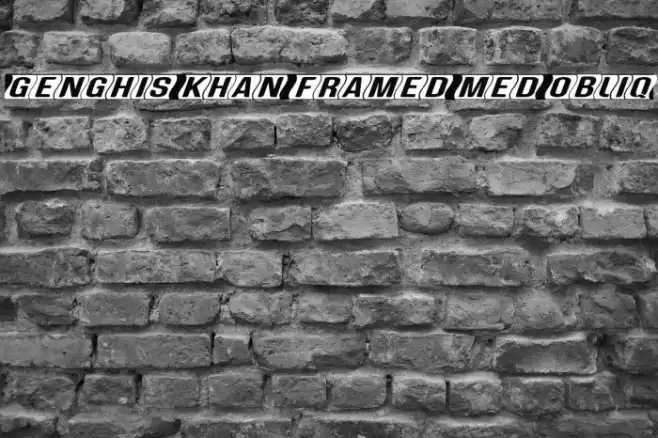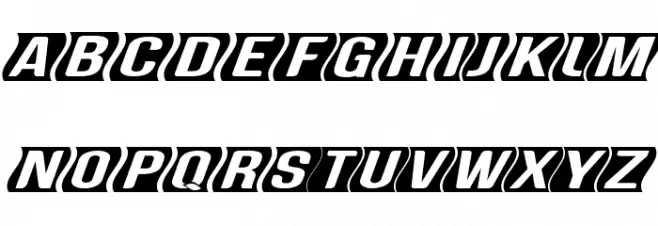
Genghis Khan framed Med Obliq Font
Genghis Khan framed Med Obliq Description
This font features a bold and dynamic style with a distinct oblique slant, giving it a sense of movement and energy. The characters are framed with a thick black outline that enhances their visibility and impact. The uppercase letters are uniform in height, maintaining a consistent baseline, while the slant adds a unique flair. The design is reminiscent of vintage sports or racing themes, making it ideal for projects that require a strong and assertive visual presence. The font's boldness and oblique nature make it stand out, ensuring that any text set in this style will capture attention.
A bold, oblique font with a dynamic, framed style ideal for impactful designs from Uncategorized fonts.
- Proposed Projects: Perfect for sports branding, racing event posters, dynamic logos, and vintage-themed designs.
- Overall Style: Vintage, Dynamic